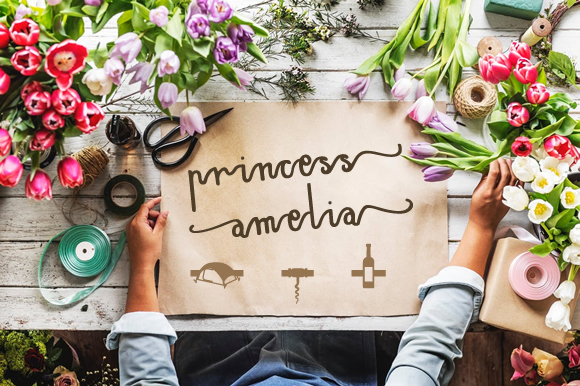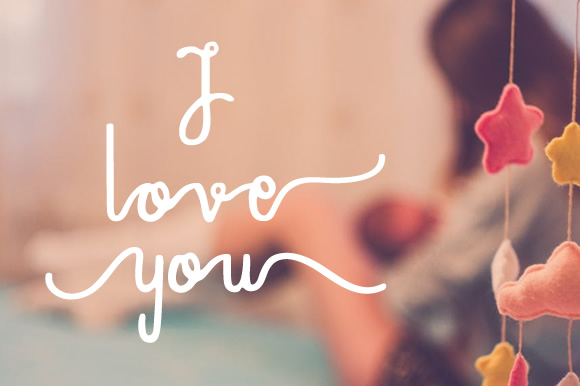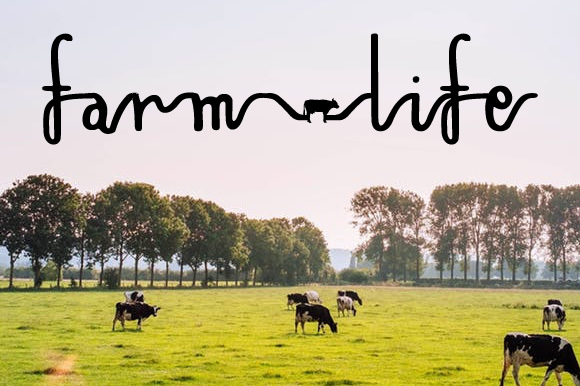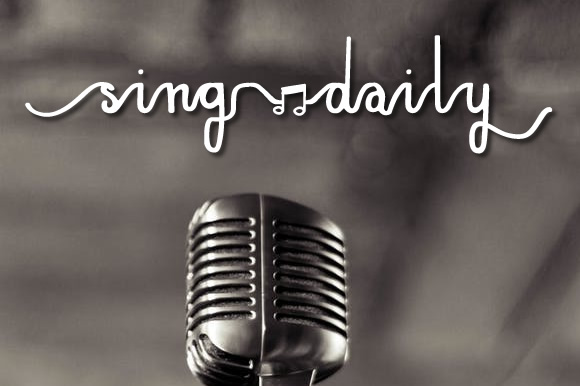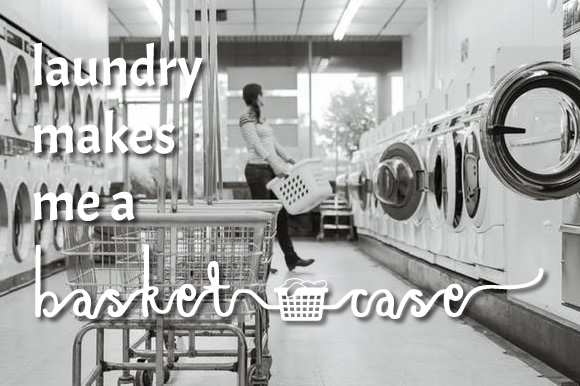
About Princess Amelia Font
Princess Amelia is the perfect set of craft fonts. This set includes 3 fonts:
Princess Amelia – A super cute handwritten font. Fluid letters that will work for any project.
Princess Amelia Swashes – The regular version but with stunning long swashes and swirls, both for the beginning and end.
Princess Amelia Icons – 189 unique hand-drawn icons that integrate perfectly with this font.
These 3 fonts allow you take make unlimited combinations and designs. You can simply decide if you want to add swashes to your text, and the unique icons allow you to combine words with a matching handdrawn image.
With over 189 icons in the icon font, you can always find something that suits your design. Some of the themes included: Animals, Zodiac Signs, Scrabble, Music, Love & Hearts, Christmas & Ornaments, Feathers and many many more (make sure to check out the specimen file to view them all).
The Icons font comes with 2 connectors:
These connectors can be accessed by typing either [ ] or { } when you have the icons font selected. In between you can place any icon you like from the icon font and connect them with the connectors, as can be shown below:
You can now easily add text before and after the icon. This would result in the text connecting with the icon, as can seen below: